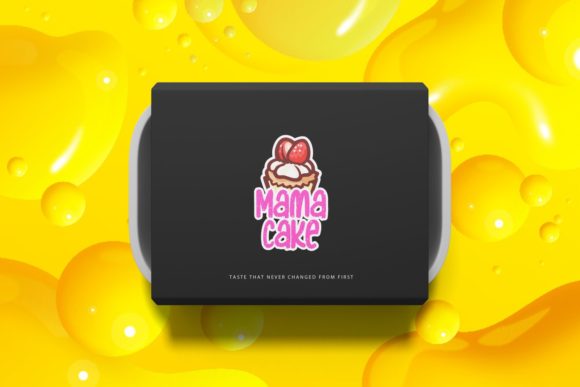
Farobe Font: Elevate Your Creative Projects with a Fun and Elegant Display Font
Are you looking for a font that can add a touch of elegance and playfulness to your creative projects? Look no further than Farobe Font. This fun and elegant display font is perfect for a variety of applications, from Instagram posts to calligraphy scripts for DIY projects. With its incredibly rough feel, Farobe Font is sure to turn any creative idea into a true piece of art.
Key Features of Farobe Font
- Fun and Elegant Design: Farobe Font boasts a unique blend of elegance and playfulness, making it perfect for creative projects that require a touch of sophistication and whimsy.
- Incredibly Rough Feel: The font’s rough texture adds a layer of depth and character to any design, giving it a distinctive and eye-catching look.
- Display Font: Farobe Font is specifically designed as a display font, making it ideal for headlines, titles, and other prominent text elements.
- Versatile: This font can be used for a wide range of applications, from social media graphics to calligraphy scripts and DIY projects.
10 Creative Ways to Use Farobe Font
- Instagram Posts: Add a touch of elegance and playfulness to your Instagram posts with Farobe Font. Use it to create eye-catching headlines, captions, or quotes.
- Calligraphy Scripts: Farobe Font is perfect for calligraphy scripts, adding a unique and creative twist to your DIY projects.
- Logos and Branding: Use Farobe Font to create a distinctive and memorable logo for your business or brand.
- Social Media Graphics: Create stunning social media graphics with Farobe Font, from Facebook posts to Twitter headers.
- Invitations and Cards: Add a touch of elegance to your invitations and cards with Farobe Font.
- Packaging Design: Use Farobe Font to create eye-catching packaging designs that stand out on store shelves.
- Advertising: Farobe Font is perfect for advertising campaigns, adding a touch of creativity and whimsy to your ads.
- Web Design: Use Farobe Font to create stunning web designs, from website headers to blog posts.
- Print Design: Farobe Font is ideal for print design, from brochures to flyers and posters.
- Art Projects: Farobe Font is a great addition to any art project, adding a unique and creative element to your work.
The Benefits of Using Farobe Font
Farobe Font offers a range of benefits for creative professionals and DIY enthusiasts. Here are just a few:
- Unique and Eye-Catching: Farobe Font is a truly unique and eye-catching font that will set your creative projects apart from the crowd.
- Easy to Read: Despite its rough texture, Farobe Font is easy to read, making it perfect for a wide range of applications.
- Versatile: Farobe Font can be used for a wide range of applications, from social media graphics to calligraphy scripts and DIY projects.
- High-Quality: Farobe Font is a high-quality font that is designed to deliver exceptional results.
Tips and Tricks for Using Farobe Font
Here are a few tips and tricks for getting the most out of Farobe Font:
- Experiment with Different Sizes: Farobe Font looks great in a variety of sizes, from small and delicate to large and bold.
- Pair with Other Fonts: Farobe Font pairs well with a range of other fonts, from serif and sans serif fonts to script fonts.
- Use it Sparingly: Farobe Font is a bold and eye-catching font, so use it sparingly to avoid overwhelming your design.
- Add Texture and Patterns: Add texture and patterns to your design to complement the rough texture of Farobe Font.
Farobe Font is a fun and elegant display font that is perfect for creative professionals and DIY enthusiasts. With its incredibly rough feel and versatile design, Farobe Font is sure to turn any creative idea into a true piece of art. Whether you’re looking for fonts for Instagram or calligraphy scripts for DIY projects, Farobe Font is a great choice.